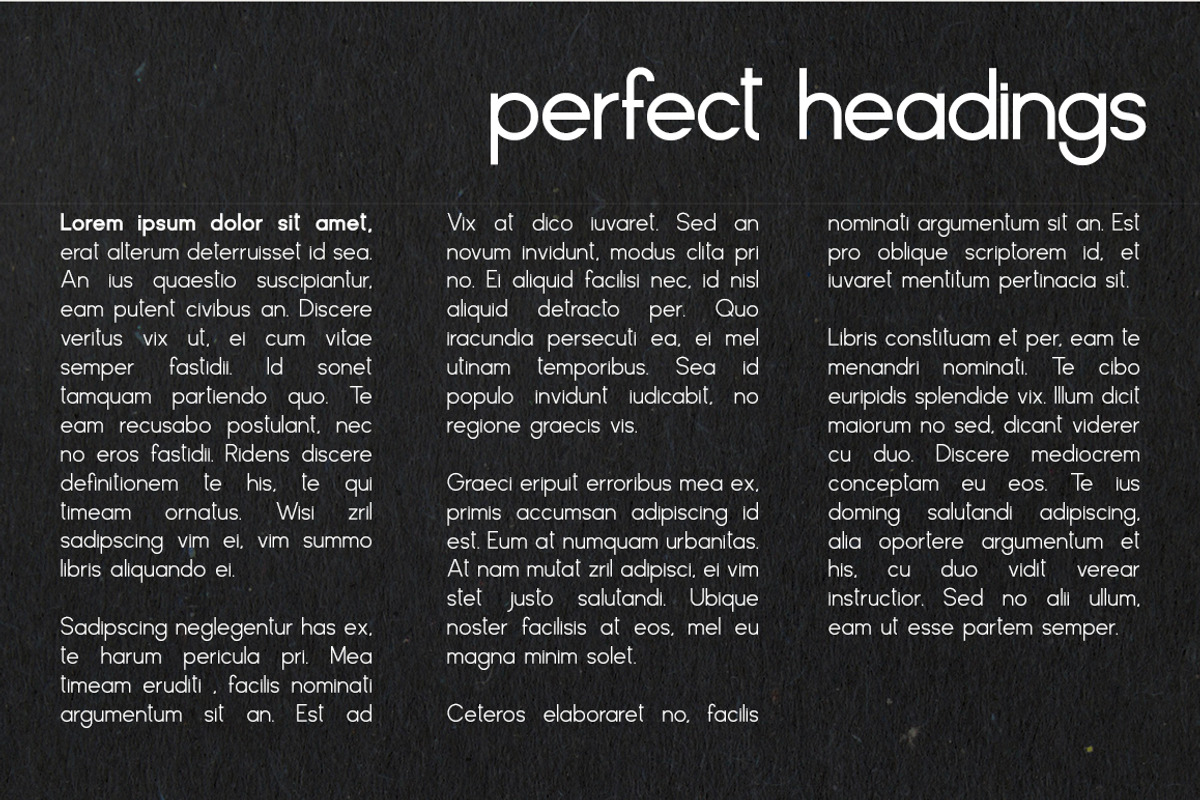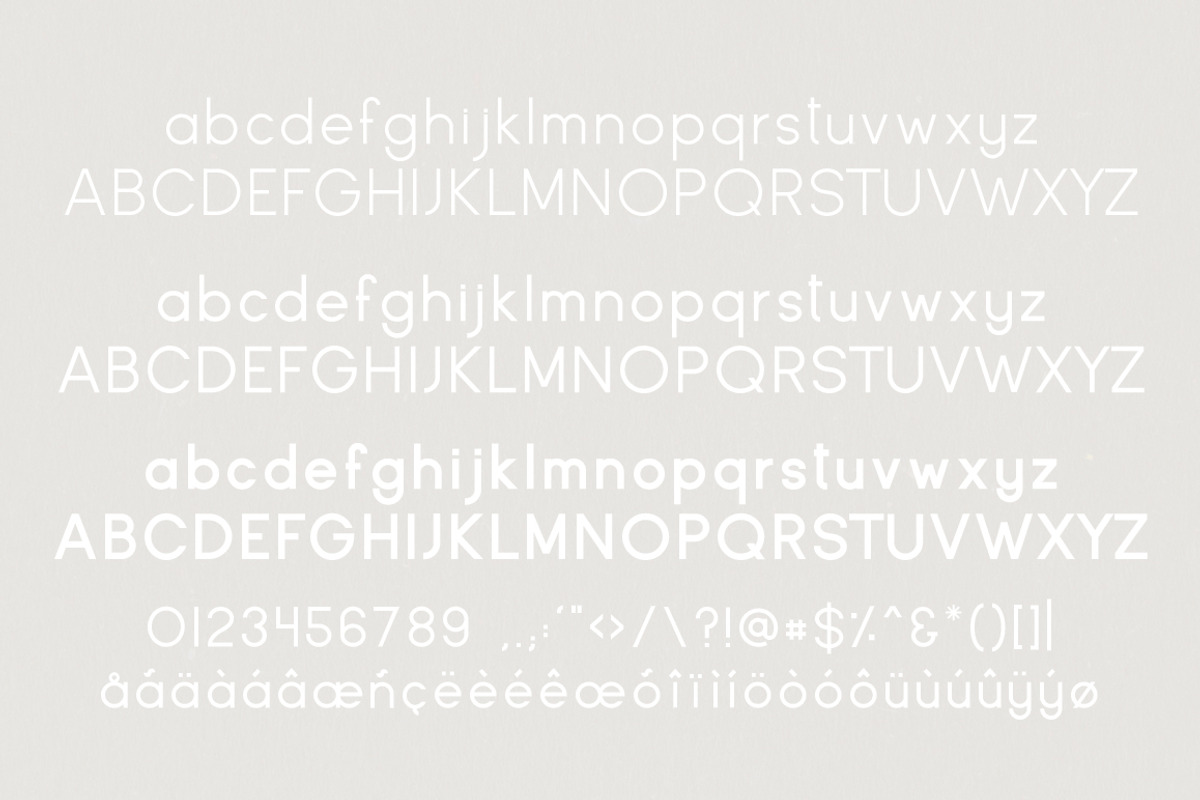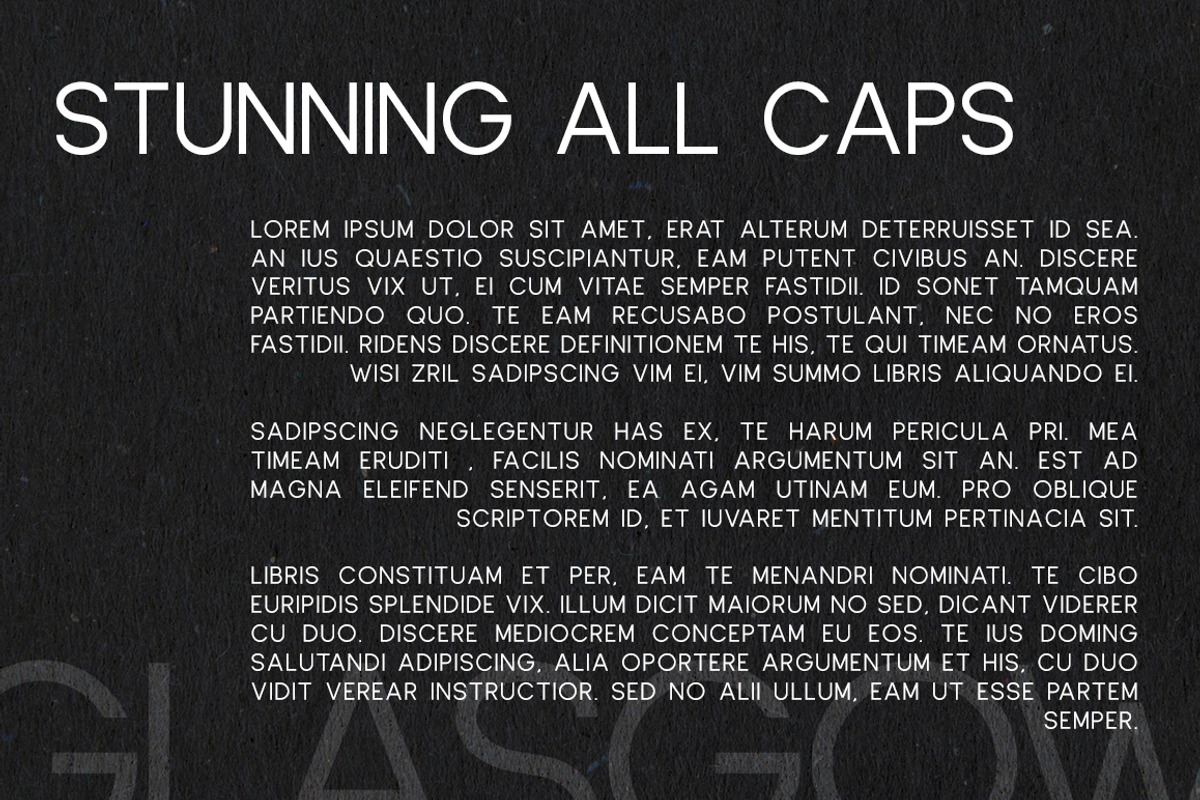
Glasgow Font
Glasgow is a sans-serif font, but with a more modern and geometric look. It’s also available in different weights and styles, and it’s suitable for a wide range of design applications, including branding, web design, and print materials.
• Capital + Lowercase letters
• Numbers + Punctuation
• Three weights
• Non-English characters via Glyphs panel